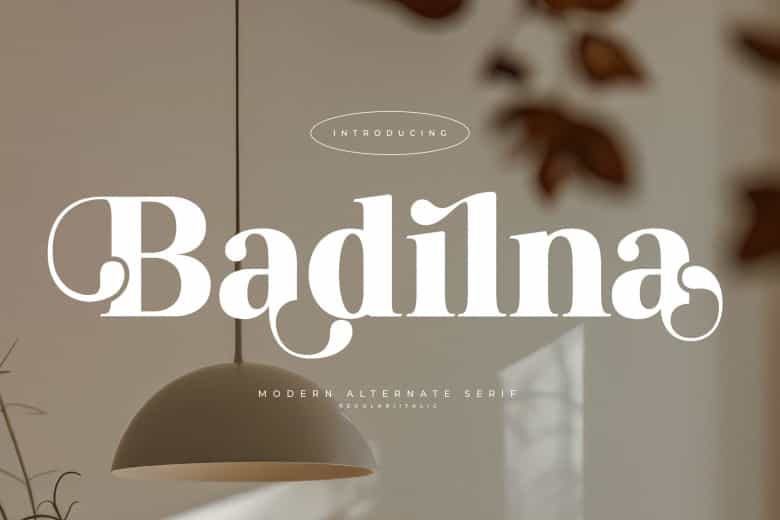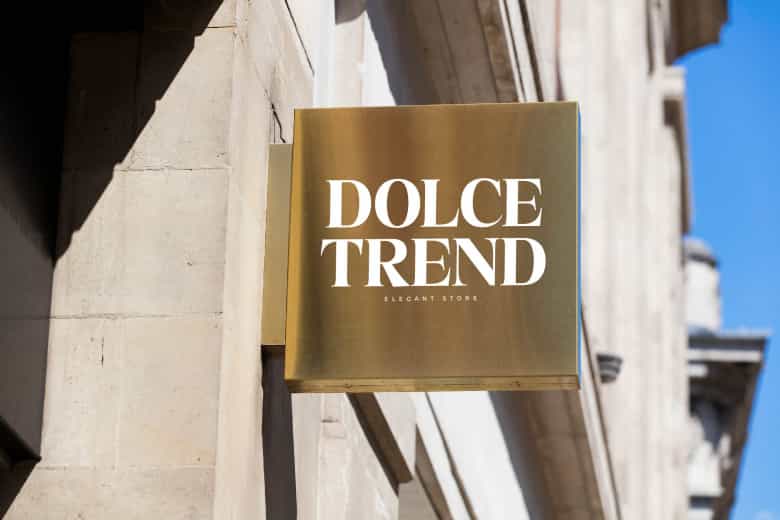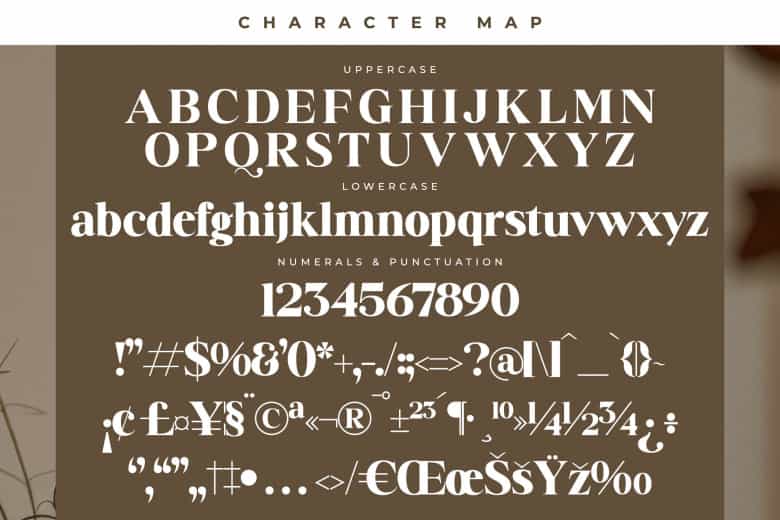
Badilna – Modern Alternate Serif Font, from Letterena, it’s suitable for any projects such as: logos, brand projects, homeware designs, product packaging, mugs and quotes on them , posters and shopping bags bears the text of a design that is all related to good life.